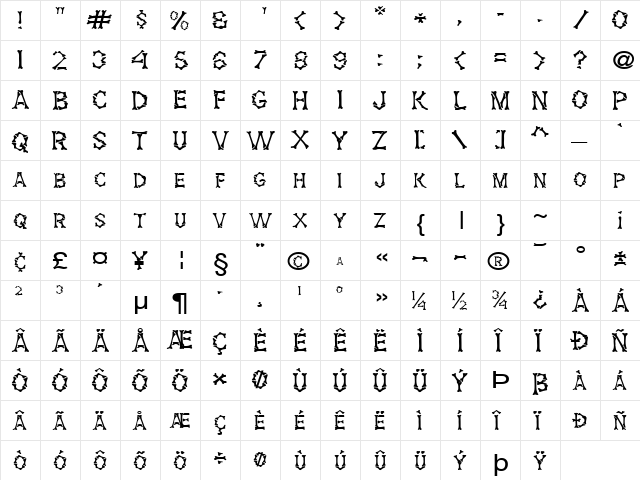
Eddy's Bones-Extended Normal
Design Context for Eddy's Bones-Extended Typeface
Eddy's Bones-Extended is a composed and adaptable typeface that performs quietly and consistently across a wide range of design contexts.